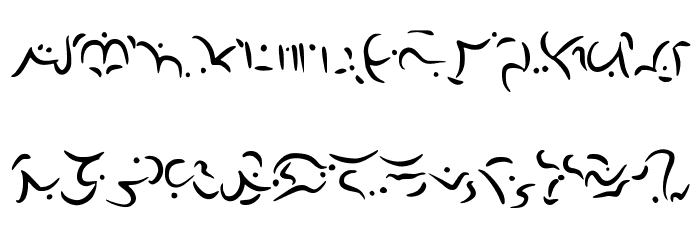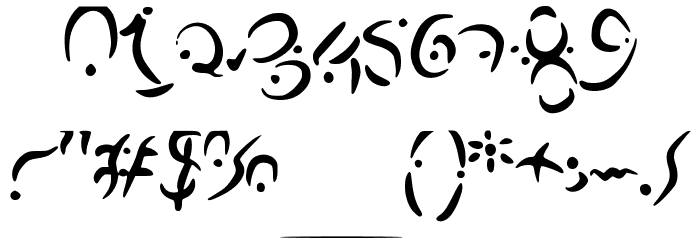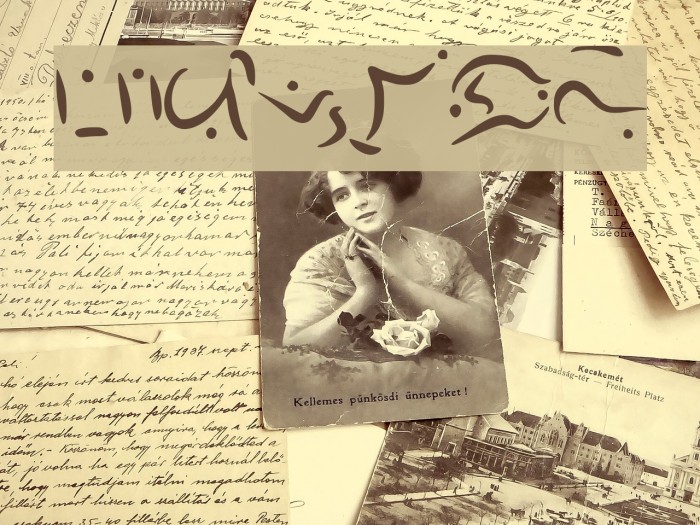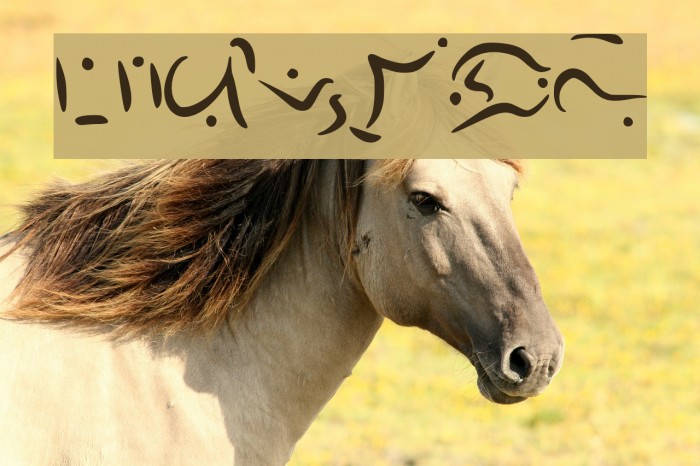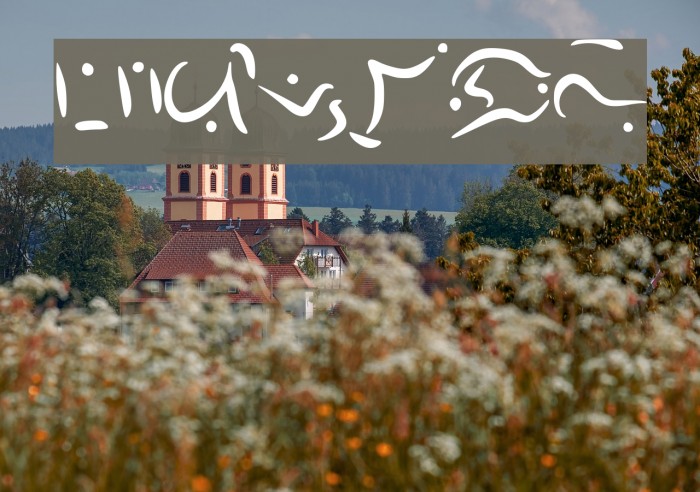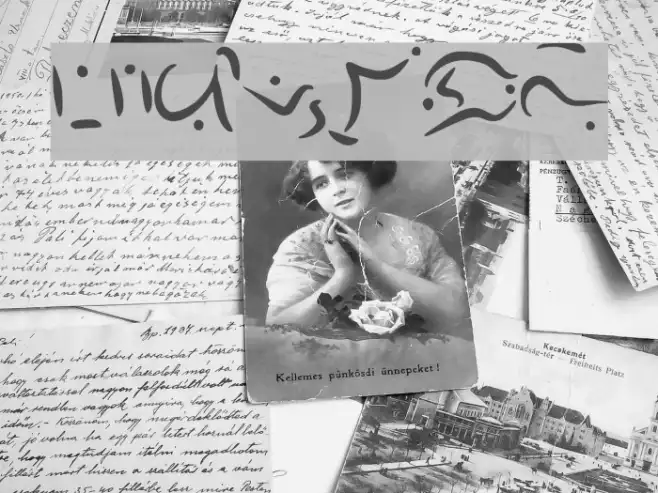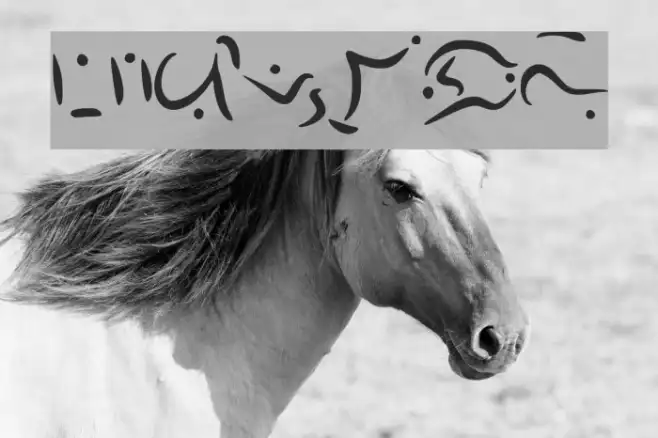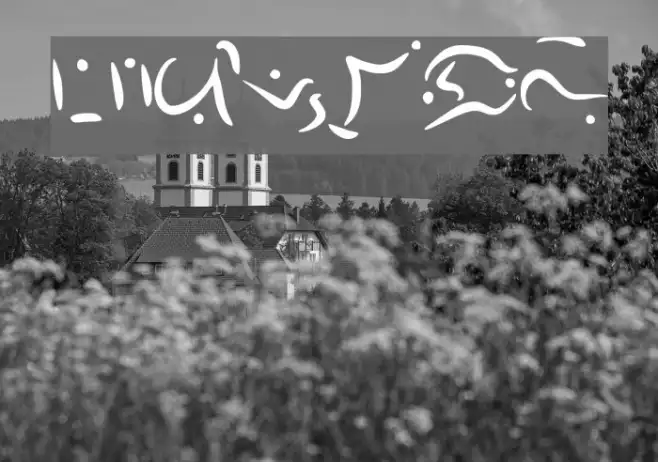
Elvish Font
This script is characterized by its flowing, ornate design, reminiscent of ancient calligraphy. The characters are elegantly curved with intricate details, giving it a mystical and ethereal appearance. The script features a combination of sharp and smooth lines, with some characters incorporating dots and accents that enhance its decorative nature. It evokes a sense of fantasy and otherworldliness, often associated with mythical or fictional languages. The overall aesthetic is both artistic and sophisticated, making it suitable for projects that require a touch of elegance and fantasy.
An ornate, flowing script with a mystical and ethereal design.
- Proposed Projects: Ideal for fantasy-themed projects, book covers, movie titles, or any creative work that requires a touch of elegance and mystique.
- Use Case: Logos, Titles, Decorative elements